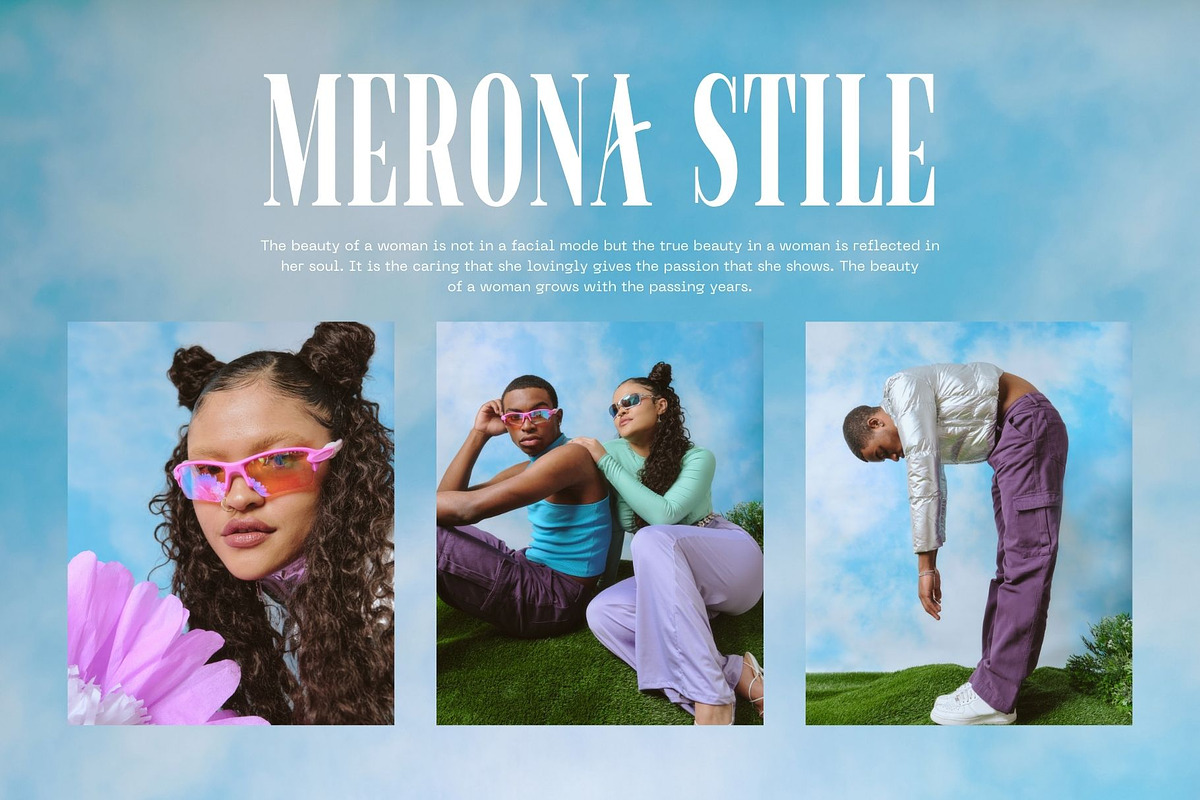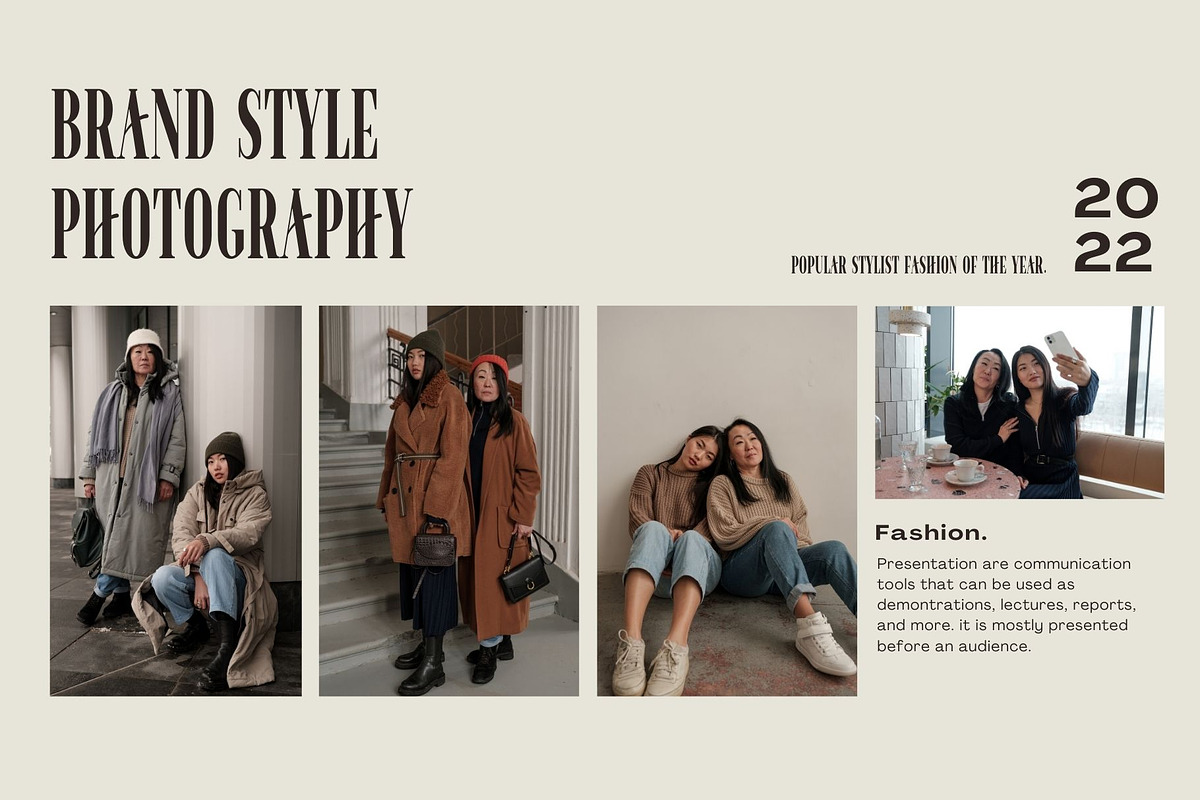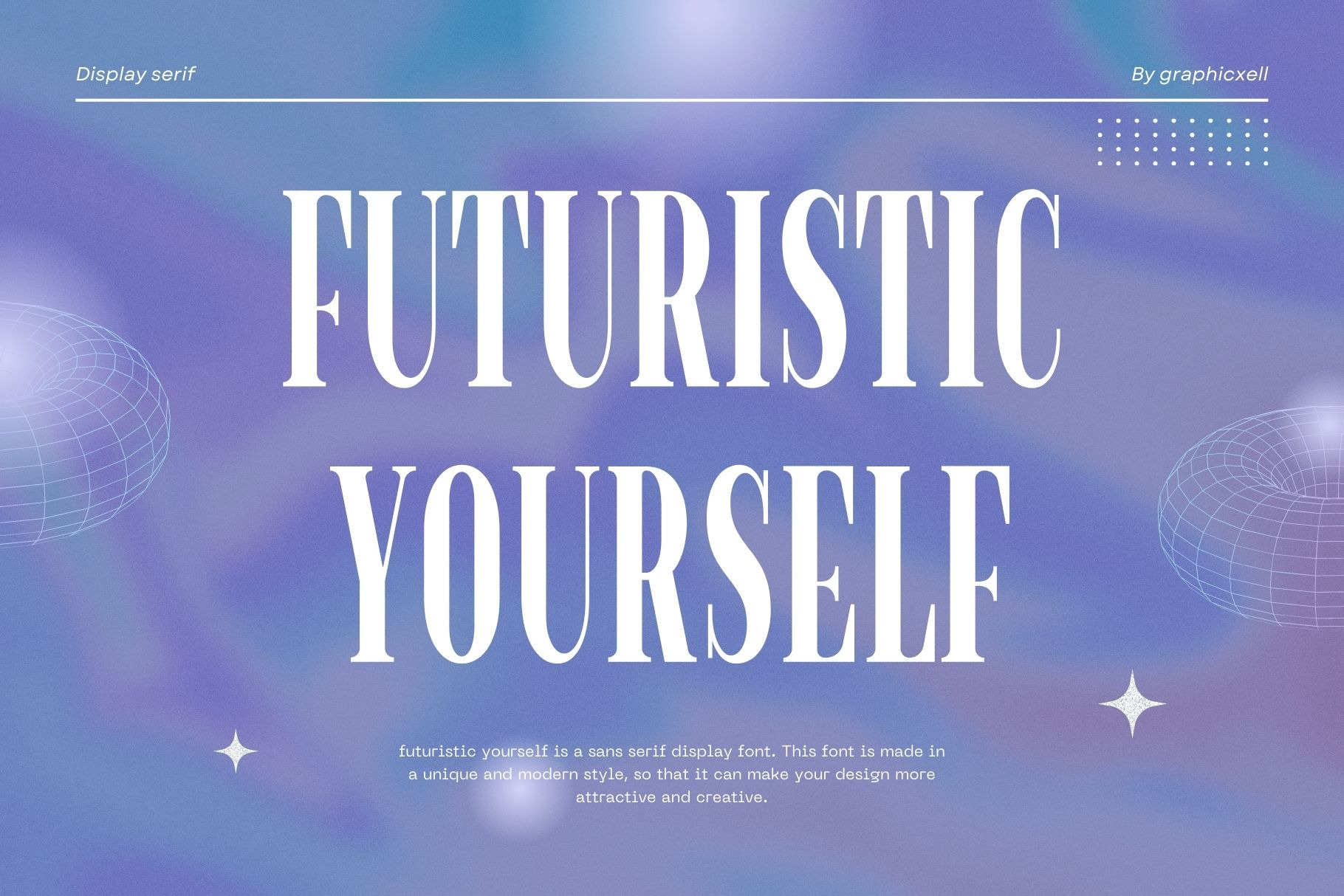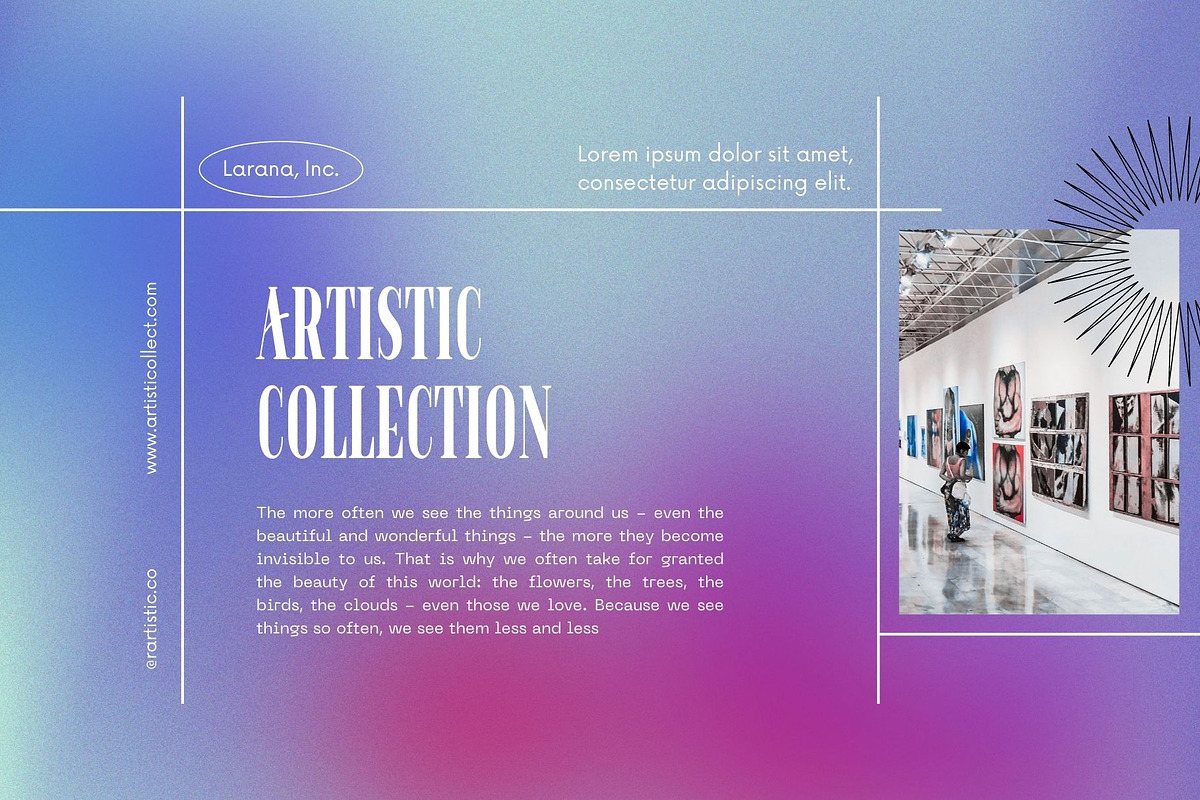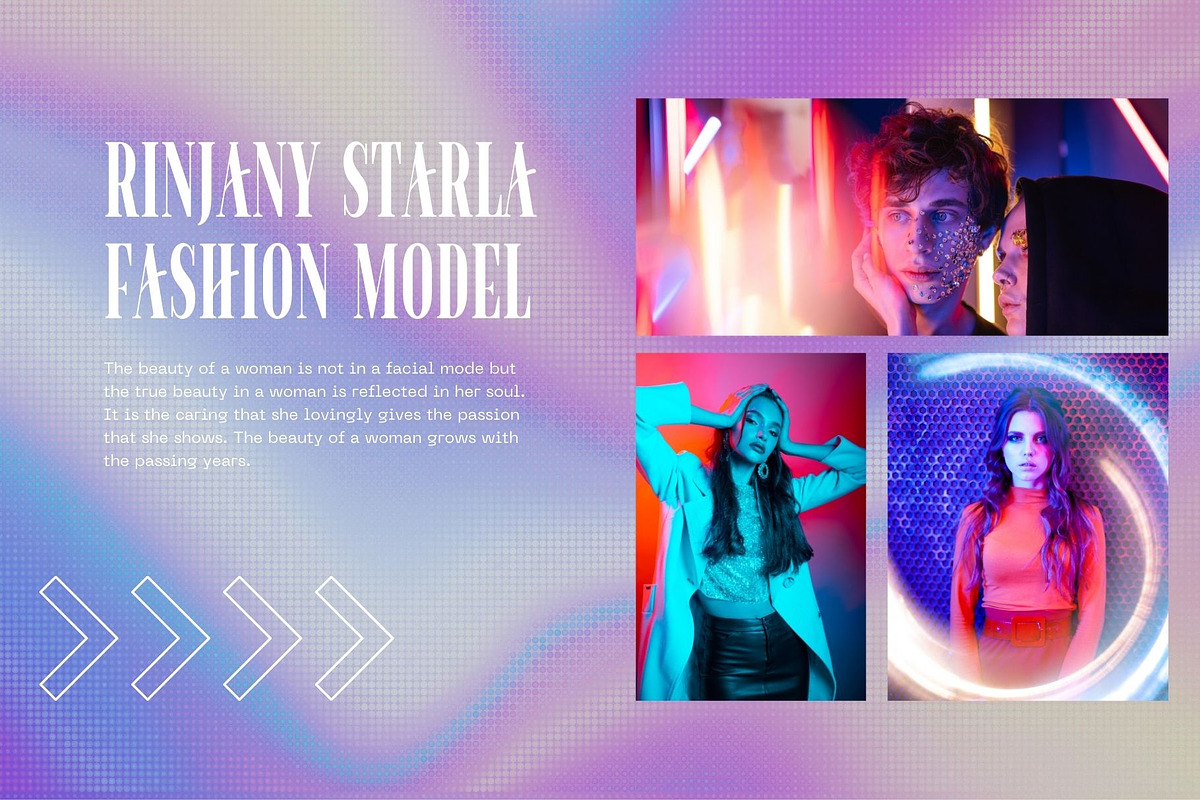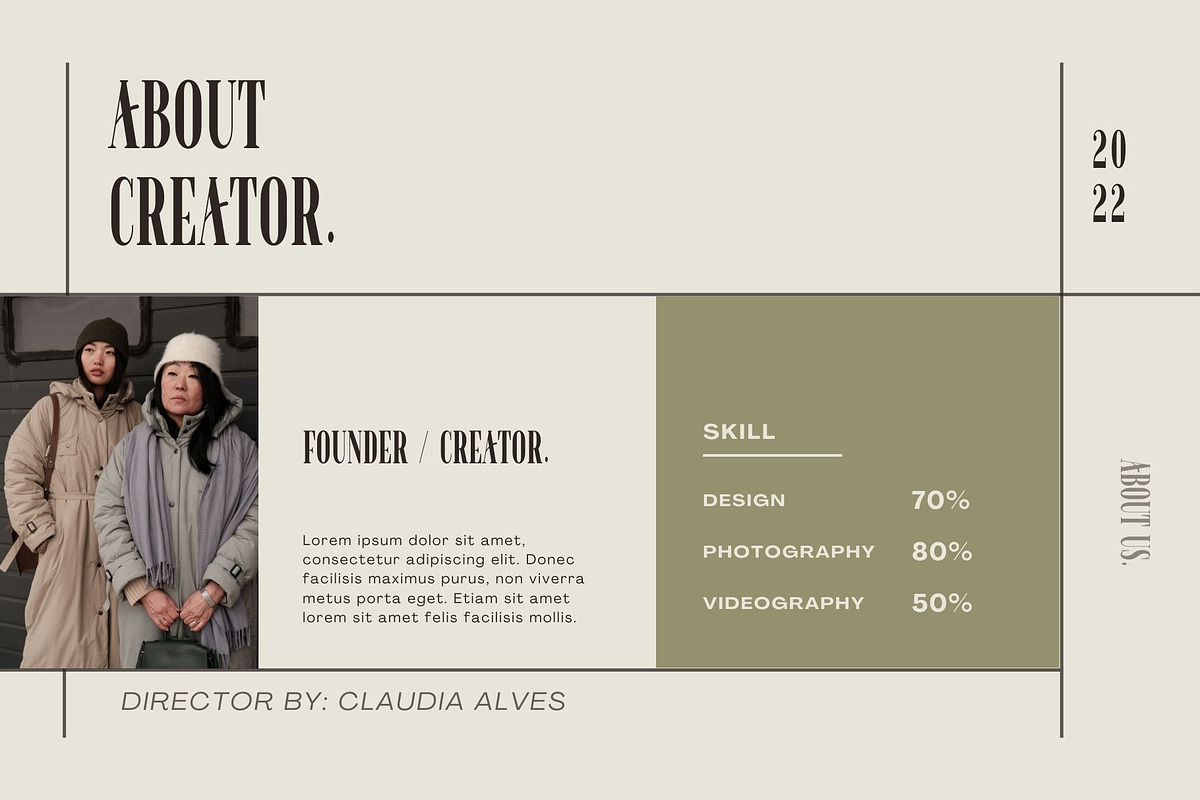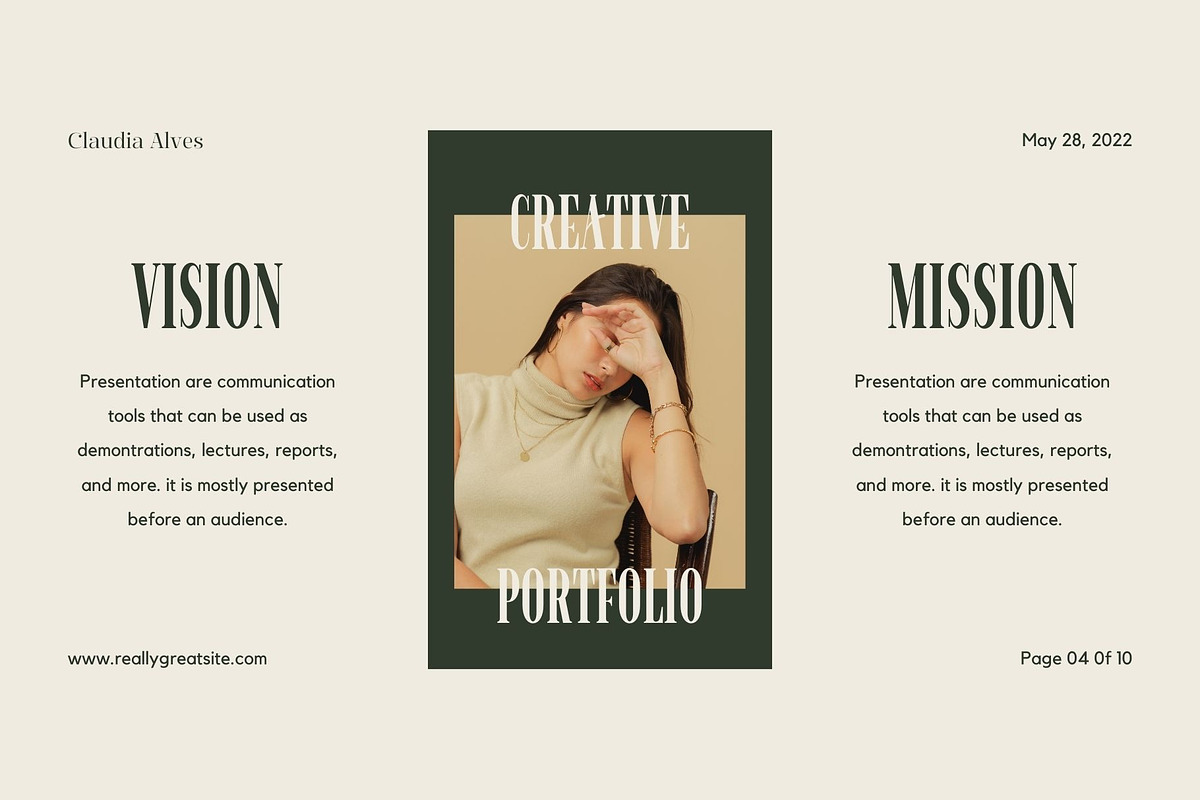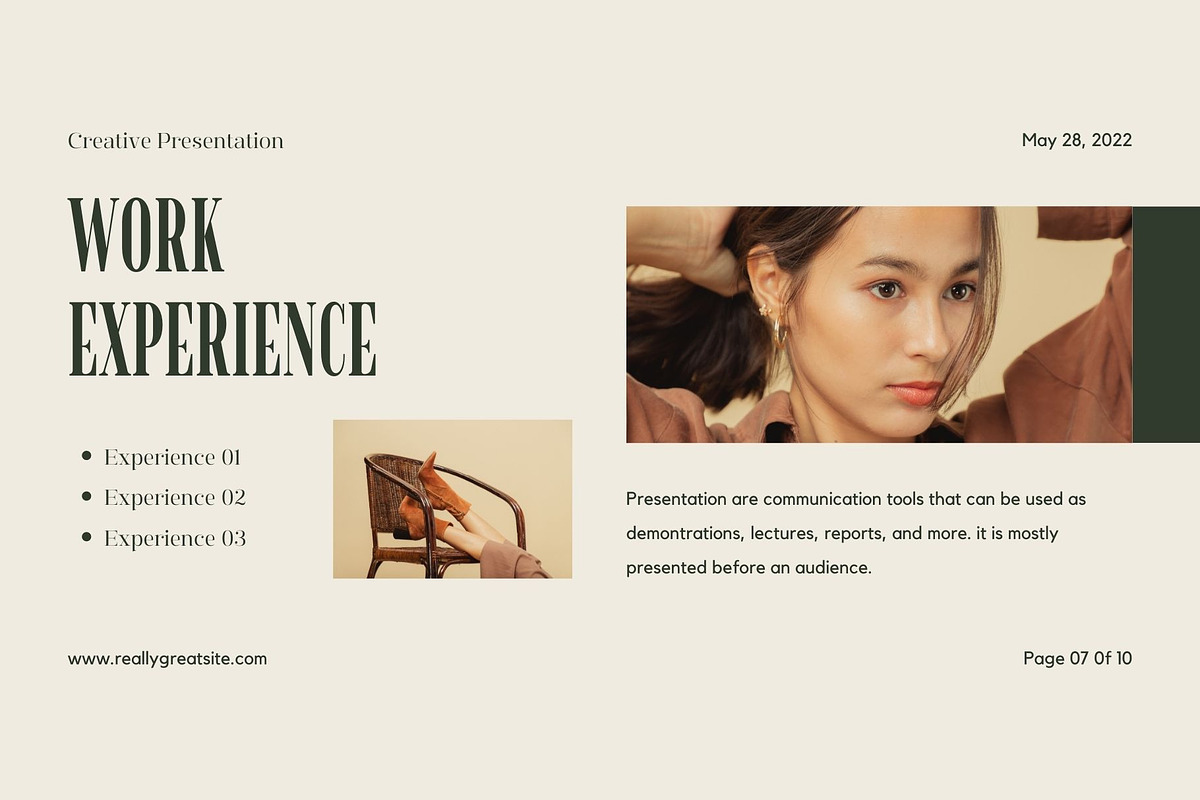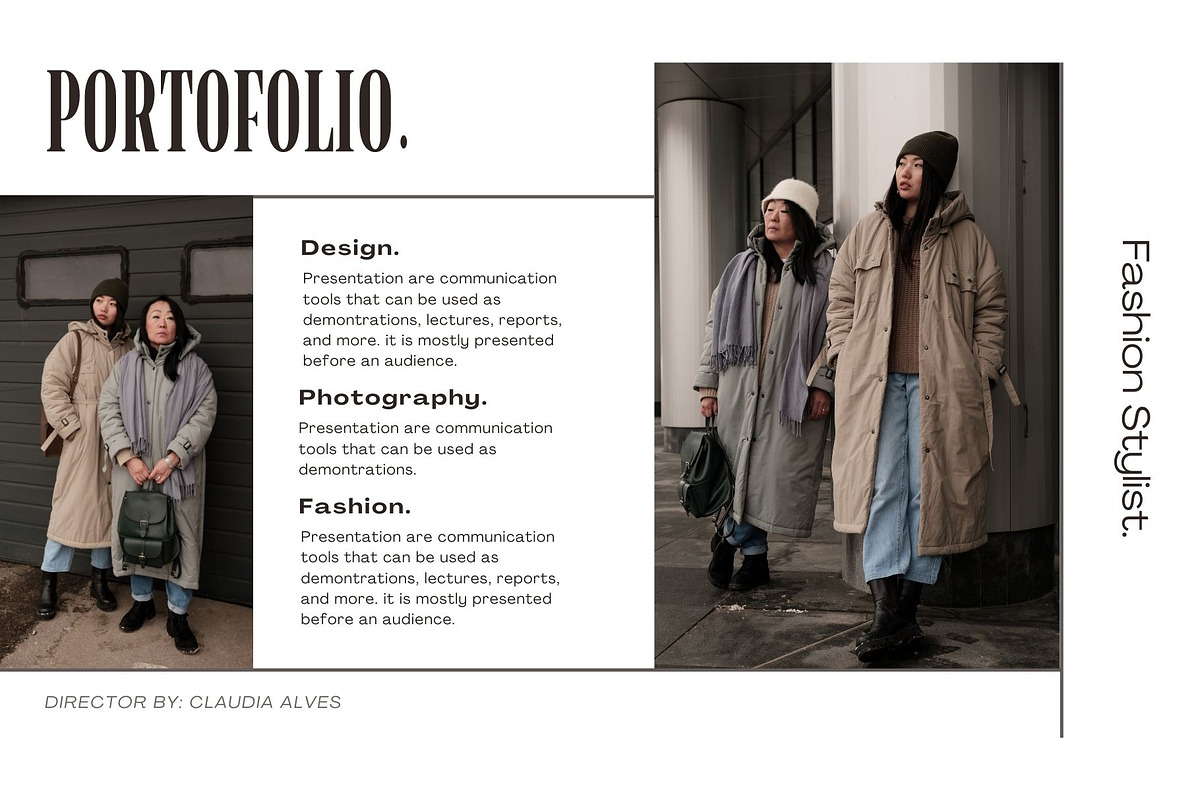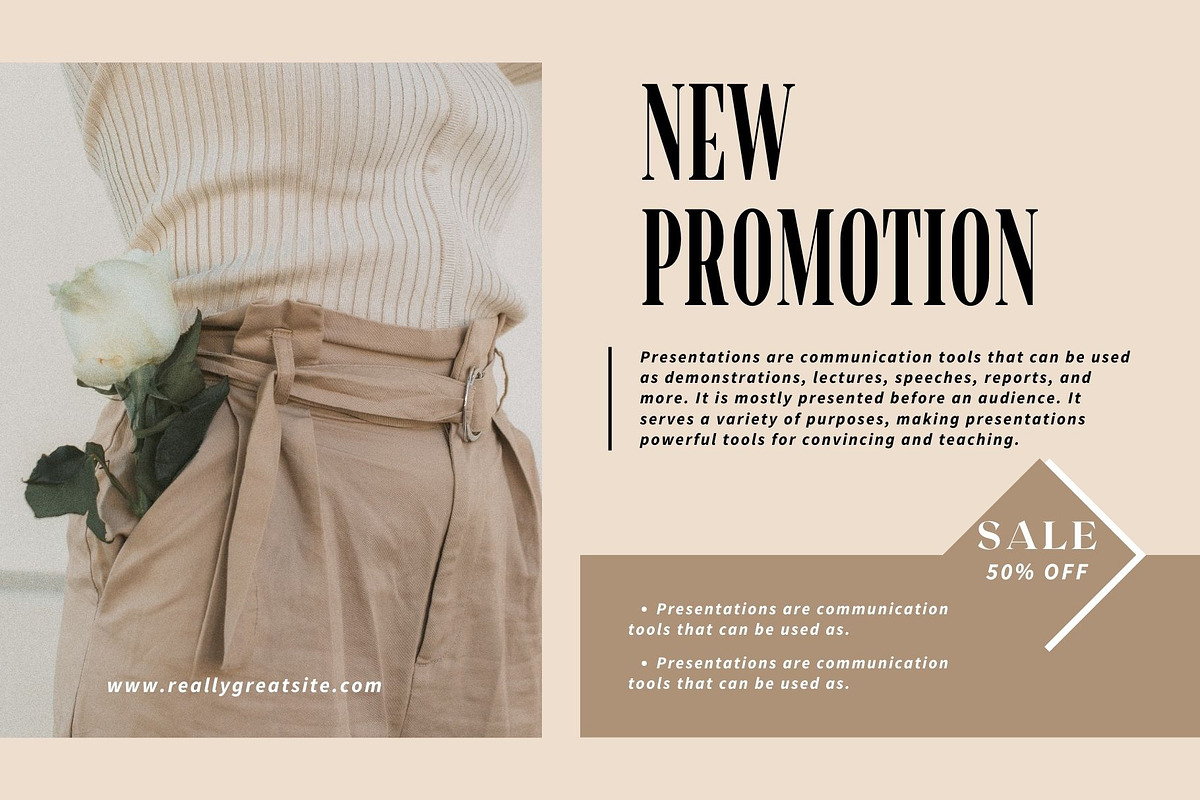
Futuristic Yourself Serif Font
Futuristic Yourself Serif Font inspired by the famous minimalist logo perfect for the purposes of designing templates, brochures, videos, advertising branding, logos, invitation, layout design, elegant crafting, beauty design and more.